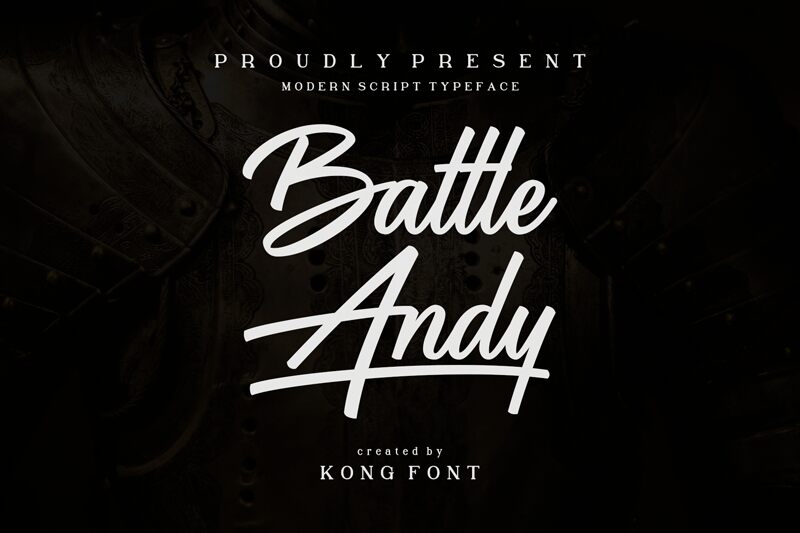
Battle Andy font family by Kong Font consists of 6 free font styles with an expressive and energetic design that adds modern style to any surface. The script of each character is flowing and dramatic which gives any text contemporary charm. Add it to your fonts on Illustrator or work with it on your daily editing apps to see immediate and beautiful results.
Use Battle Andy font in branding projects, visual identity design, stationery, magazines, advertisements, or websites. Title your blog with a stylish and strong title, or let the product labels or menu items attract customers before they even know anything about them.